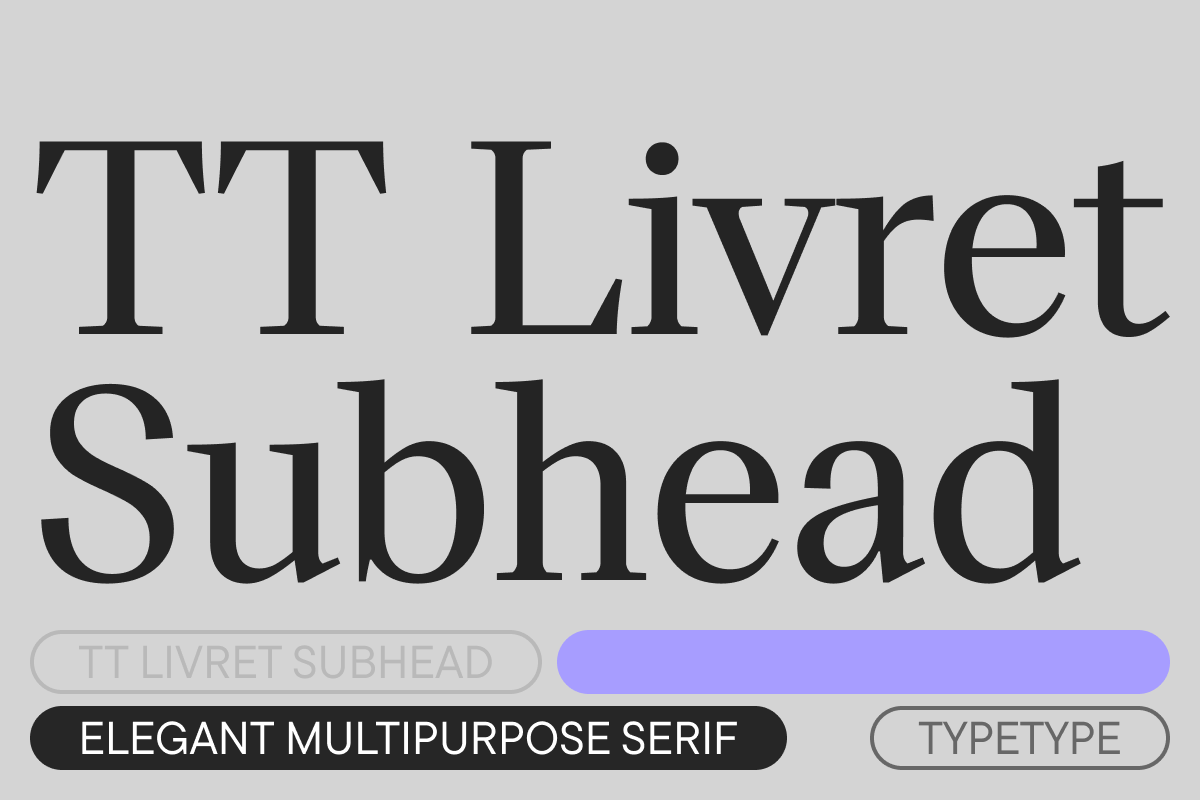
TT Livret Subhead Bold
TT Livret is an elegant, modern, and functional serif featuring both text and expressive display subfamilies. The font looks harmonious in books and other periodicals, on posters, and on magazine covers. The use range of TT Livret goes far beyond the printing industry, as this font gives an aesthetic look to any text typed in it. The Subhead subfamily in the font combines the calmness of the text subfamily and the more expressive contrast of the display one.